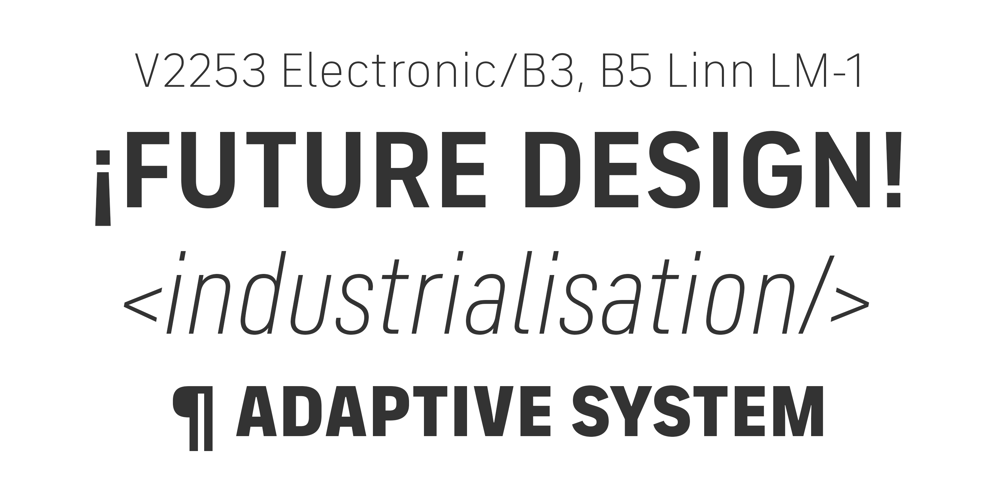
FS Industrie Font Family was designed by Fernando Mello, Phil Garnham and published by Fontsmith. FS Industrie contains 70 styles and family package options. Changing nature of workFS Industrie is an extraordinarily versatile new type system, with 70 variants built around five different widths and seven different weights. Type in the future will be increasingly variable, and FS Industrie is specifically designed to address the changing needs of brands. As more of the things we make exist primarily in a digital space, so our need to create type that can adapt within that space grows. It is the spirit of variable design, adaptation and flexibility that drove us to create FS Industrie. A typeface for future work in a future world. FS Industrie is a response to the changing nature of type, for brands that are responding to the changing nature of work.Industrial styleStylistically, FS Industrie feels direct and simple without sacrificing its humanity. It takes inspiration from German fonts of the 1930s, with their roots in manufacturing and signage. A classic sense of functional utility combined with a progressive view of where type is heading.Expressions in widthA fundamental challenge with variable type is to ensure that craft and precision is preserved at every interval. Each width and weight is drawn by hand, with subtle variations in terminals and angles as you progress through the system. This ensures each variant can play to its unique strengths, while also pairing perfectly with its siblings.From the closed terminals of the Condensed and the open terminals of the Extended. FS Industrie is a design system that maintains a practical, grounded and robust tone throughout every variable style.Variable natureThe 70 styles offer a range of expression. Each width contrasts with the next to clearly define typographic roles in graphic layouts. Every glyph is crafted with adaptability and scalability in mind, creating a pliable design space for the user. The proportions of each letterform flex as weight scales up, stem weights increase as letter width broadens. These subtle design changes create an optically consistent visual impression.